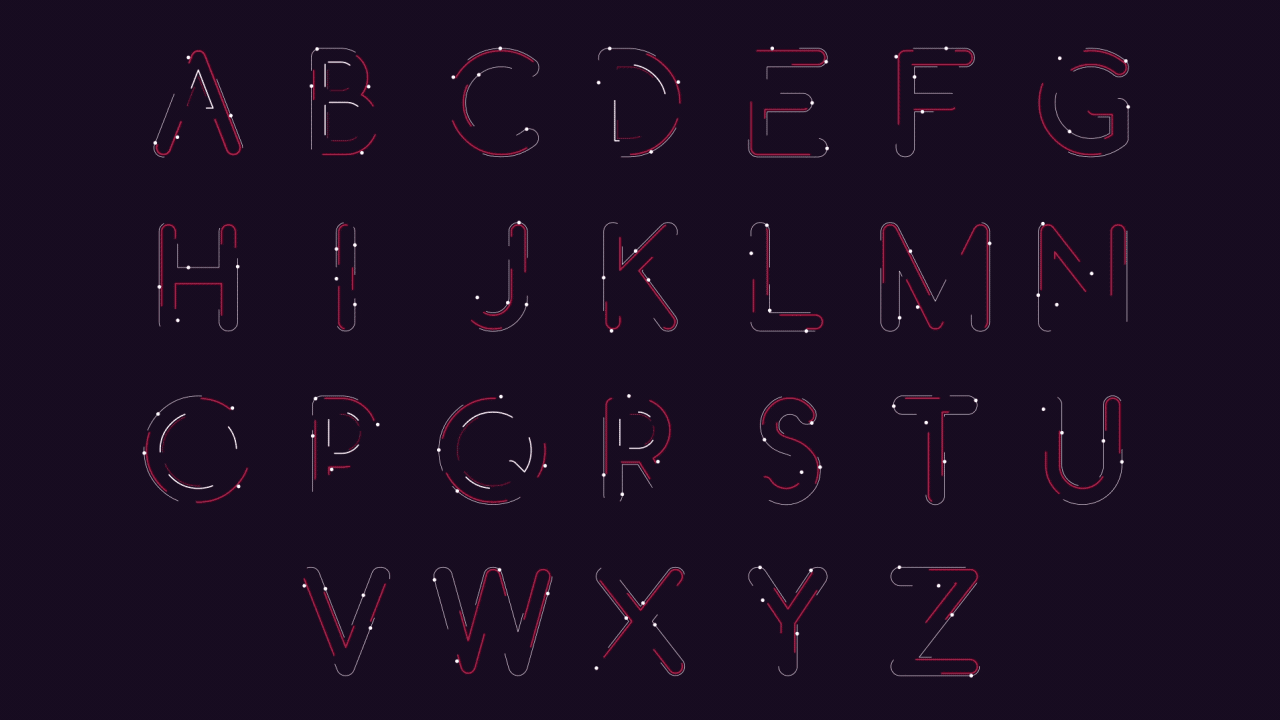
The style of your font is fully optional and depends on many factors. However most times it comes in more than handy to have about ten fonts you're familiar with and that work well in multiple situations such as kinetic typography or 3d applications.
92 Inspiration How To Make Motion Fonts For Logo Design, If you're still looking for your favorite ten check out this roundup because it. The motion™ font includes the following font families:
Aim to match the tone of your video or personality. Another free animated font that we really love is the wicked mouse font. Click now to create a custom image with. Large open space in the letters make it to read.
The motion™ font includes the following font families: Discover short videos related to how to make a font to alight motion on tiktok. Click it to open the dialogue box for downloading. Free download of motion font. Motion Control Font FontMagic.
Fonts must have a valid license to use on the web 2. Adobe fonts is the easiest way to bring great type into your workflow, wherever you are. Here is a preview of how motion™ will look. Good question, in this video, we explore how to create and animate basic lower thirds in premiere pro. Simple Text Animation CSS, HTML & jQuery Codingle YouTube.
After that, close and save the placeholder. In this video i will share photoshop motion tutorial, and this is the first video of some video tutorial that. Here is a preview of how motion™ will look. Check out these 25 free sans serif fonts that are perfect to use in motion design! How To Create an Animated Neon Text Effect in Adobe.